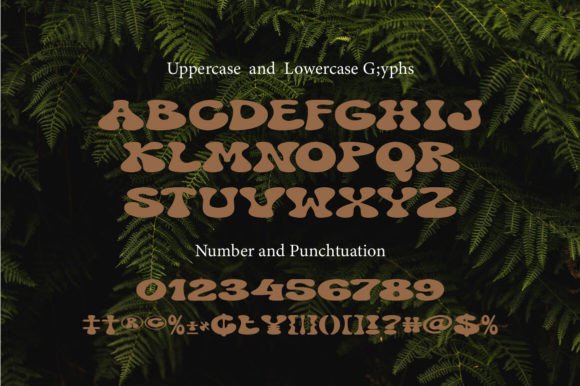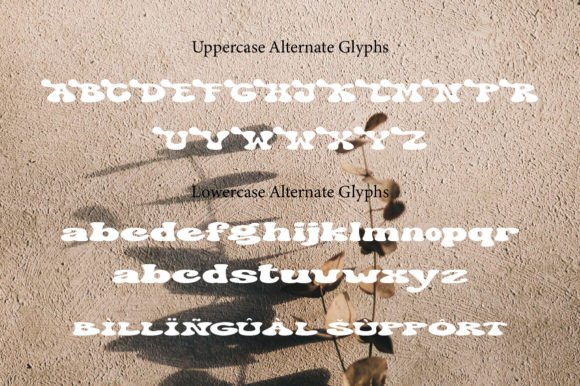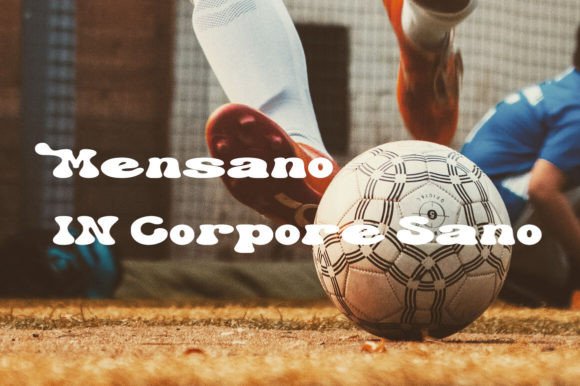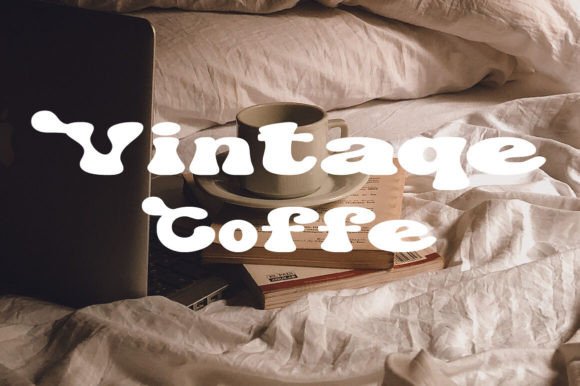
Introducing Glowing Font: The Ultimate Retro Display Font for Creative Projects
Are you tired of using the same old fonts for your design projects? Look no further! We’re excited to introduce Glowing Font, a vintage display font that’s sure to add a touch of uniqueness and wonder to your creations. With its retro style and groovy vibe, Glowing Font is perfect for designers and crafters looking to add some personality to their work.
What is Glowing Font?
Glowing Font is a carefully crafted display font that’s inspired by the classic typography of the past. Its vintage style is reminiscent of the 60s and 70s, with bold lines, curvaceous shapes, and a dash of playfulness. This font is not just a collection of letters and numbers; it’s an experience that will transport your designs back in time to an era of free expression and creativity.
Key Features of Glowing Font
- Retro Style: Glowing Font boasts a distinctive retro style that’s sure to grab attention and evoke a sense of nostalgia.
- Unique and Quirky: This font is not for the faint of heart! Glowing Font is full of personality and whimsy, making it perfect for projects that need a bit of flair.
- Vintage Display: Glowing Font is designed specifically for display purposes, making it ideal for headlines, titles, and other attention-grabbing elements.
- Highly Versatile: Whether you’re working on a logo, invitation, social media post, or any other project, Glowing Font is sure to adapt and shine.
So, what can you use Glowing Font for? The possibilities are endless! Here are some ideas to get you started:
- Logos & Branding: Create a memorable brand identity with Glowing Font’s bold and eye-catching style.
- Invitations & Wedding Designs: Add a touch of vintage glamour to your invitations, wedding cards, and other stationery.
- Social Media Posts: Stand out on social media with Glowing Font’s quirky and engaging style.
- Advertisements: Grab attention and drive results with Glowing Font’s bold and persuasive typography.
- Product Design: Add a dash of personality to your product packaging, labels, and other marketing materials.
- Cover Art & Posters: Create stunning cover art, posters, and other visual displays with Glowing Font’s striking style.
- Movie Titles & Comic Design: Bring your movie titles, comic books, and graphic novels to life with Glowing Font’s dynamic and energetic style.
- School Projects & Special Events: Add some excitement to your school projects, event posters, and other creative endeavors with Glowing Font’s fun and playful vibe.
Why Choose Glowing Font?
With so many fonts to choose from, why should you choose Glowing Font? Here are just a few reasons:
- Unique Style: Glowing Font offers a truly one-of-a-kind style that’s sure to set you apart from the crowd.
- High-Quality Design: Glowing Font is meticulously crafted with attention to detail, ensuring a high-quality finish every time.